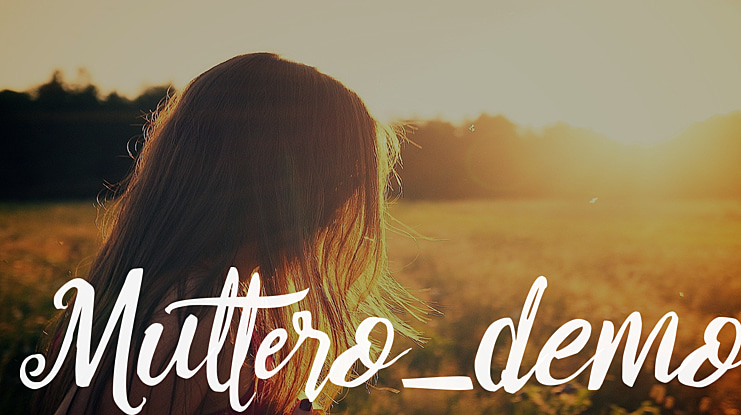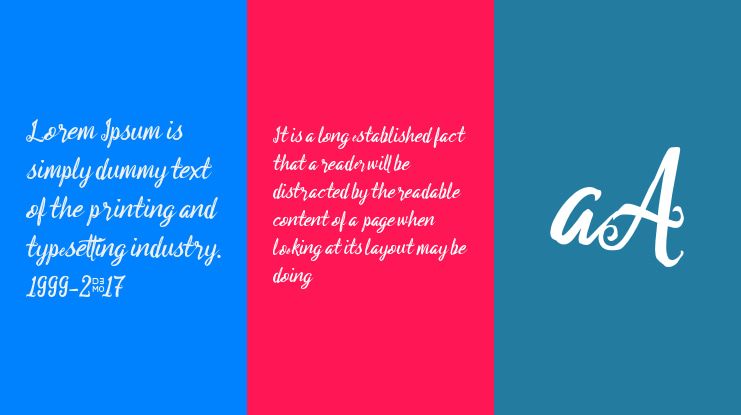
Muttero_demo Font
Muttero is a gorgeous hand-lettered script with an authentic twist. Fall in love with its unique charm! Recommended for novel cover, product packaging, banner, business cards, wedding postcard, magazines, advertisement text, headers, brand identity, etc.
Available in uppercase/lowercase letters, standard numbers and punctuation some ligature, some contextual alternate, some ornament, also multilingual support.